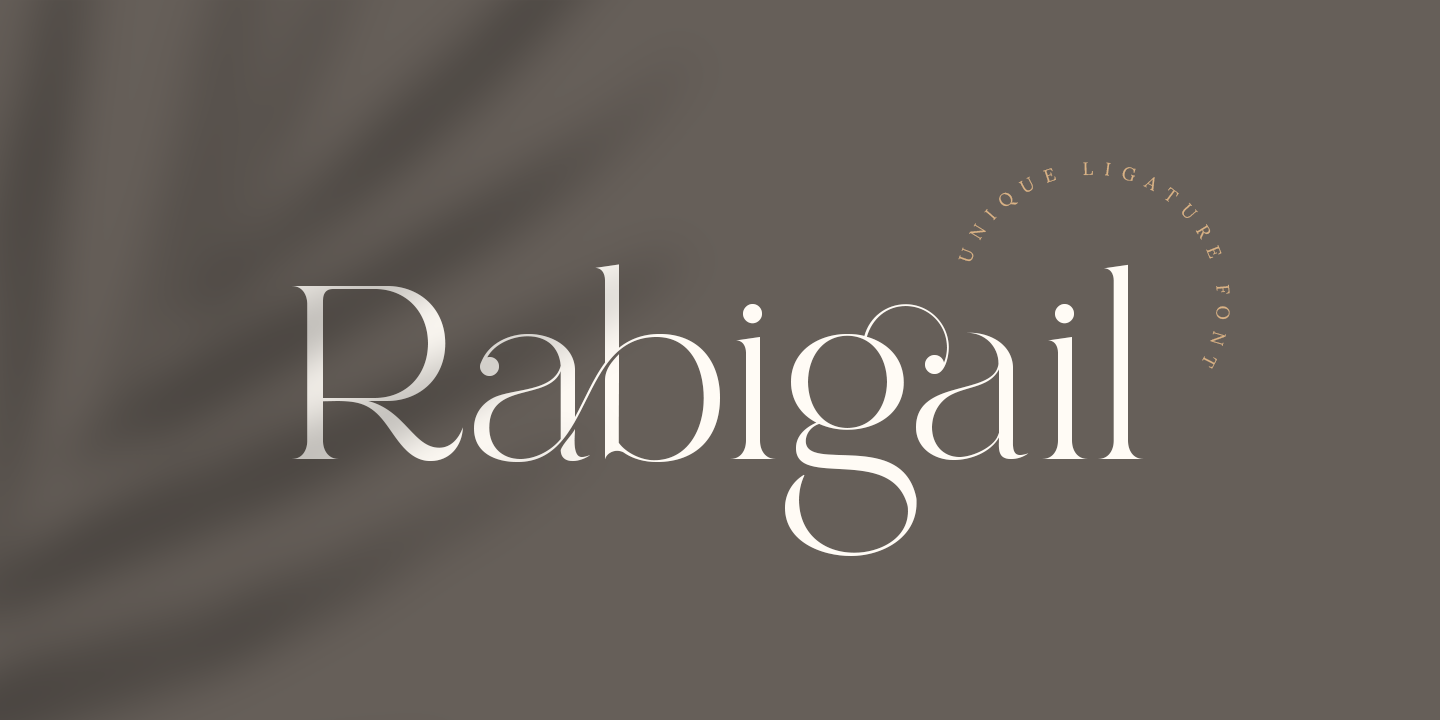
Rabigail Font excels in creative design applications including children's book covers, fairy tale illustrations, magical brand identities, boutique bakery signage, handcrafted product labels, whimsical wedding invitations, artisan craft packaging, dreamy social media graphics, fantasy game designs, and enchanting storytelling projects. This delightful typeface brings wonder and personality to any creative endeavor.
What makes Rabigail Font truly exciting is its perfect balance of playful character and sophisticated design. The font features carefully crafted letterforms with gentle curves and charming details that create a sense of warmth and approachability. Its friendly personality and magical quality make it ideal for brands wanting to evoke feelings of joy, creativity, and imaginative storytelling that resonates with audiences of all ages.
The Rabigail Font family encompasses various weights and styles including Regular, Bold, Light, and potentially Script or Decorative variations. These comprehensive options allow designers to create cohesive visual systems that maintain the font's distinctive charm while providing flexibility for headers, body text, and decorative elements across different media.
Whether you're developing children's products, creating whimsical branding, or designing imaginative campaigns, Rabigail Font Free Download provides the enchanting quality and creative spirit that modern projects demand. Its exceptional character and delightful personality make it an essential resource for designers seeking to create memorable, heartwarming designs that capture imagination and inspire wonder.